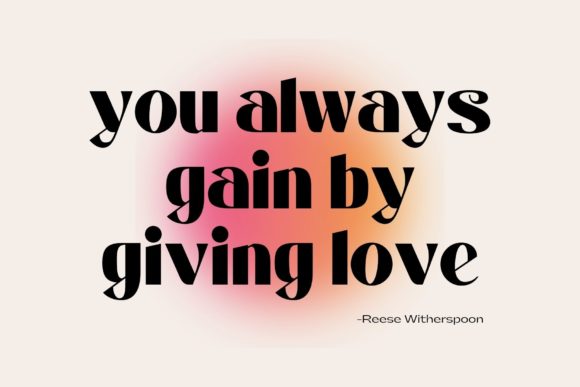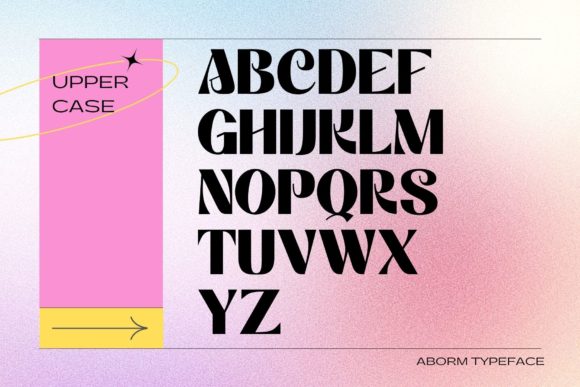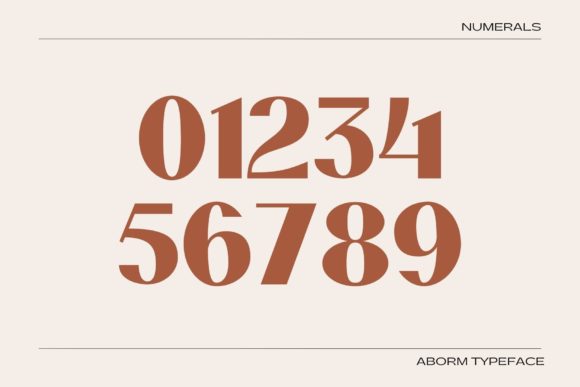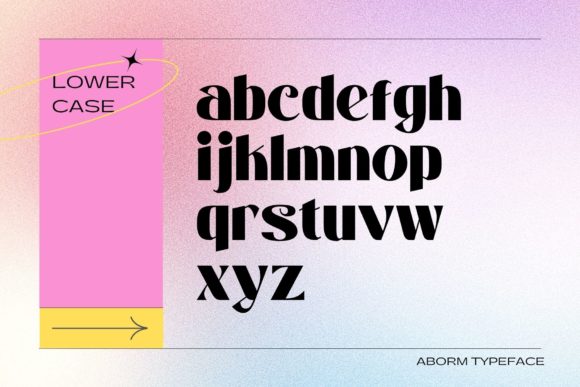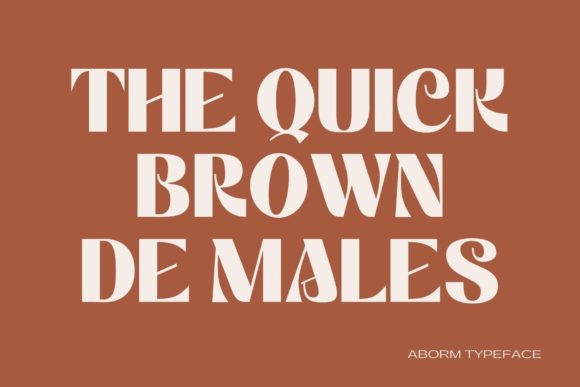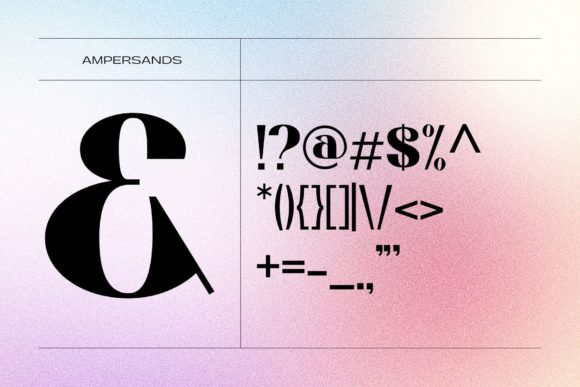
Aborm Font: Elevate Your Designs with a Cool and Modern Display Font
In the world of design, typography plays a crucial role in conveying messages, expressing creativity, and capturing the audience’s attention. A font can make or break a design project, which is why choosing the right one is essential. If you’re on the hunt for a cool and modern display font that can elevate your designs, look no further than Aborm Font. In this article, we’ll explore the features, benefits, and uses of Aborm Font, and why it’s a must-have for designers and crafters.
What is Aborm Font?
Aborm is a stylish and contemporary display font designed to provide beautiful typographic harmony for a wide range of design projects. Its sleek lines, elegant curves, and modern aesthetic make it perfect for designers who want to add a touch of sophistication to their work. Whether you’re creating logos, branding materials, social media posts, advertisements, or product designs, Aborm Font is an excellent choice.
Key Features of Aborm Font
So, what makes Aborm Font stand out from the rest? Here are some of its key features:
- Cool and Modern Design: Aborm Font boasts a fresh and modern design that’s sure to grab attention. Its unique style is perfect for designers who want to create something new and exciting.
- Beautiful Typographic Harmony: Aborm Font is designed to provide beautiful typographic harmony, making it easy to pair with other fonts and create stunning text combinations.
- Versatile: Aborm Font is suitable for a wide range of design projects, from logos and branding to social media posts and product designs.
- Elegant and Sophisticated: Aborm Font’s sleek lines and elegant curves give it a sophisticated look that’s perfect for high-end designs.
Uses of Aborm Font
Aborm Font is an incredibly versatile font that can be used in various design projects, including:
- Social Media Posts: Elevate your social media game with eye-catching posts that feature Aborm Font’s modern and sleek design.
- Advertisements: Grab attention and drive results with ads that feature Aborm Font’s beautiful typography.
- Product Designs: Add a touch of elegance to your product designs with Aborm Font’s sophisticated look.
Benefits of Using Aborm Font
So, why should you choose Aborm Font for your design projects? Here are some benefits:
- Save Time: With Aborm Font, you can create stunning designs in no time. Its modern design and beautiful typography make it easy to create professional-looking designs.
- Stand Out: Aborm Font’s unique style ensures that your designs stand out from the crowd and grab attention.
- Flexibility: Aborm Font is highly versatile, making it suitable for a wide range of design projects.
- Elegance: Add a touch of elegance and sophistication to your designs with Aborm Font’s sleek lines and elegant curves.
In conclusion, Aborm Font is an excellent choice for designers and crafters who want to elevate their designs with a cool and modern display font. Its beautiful typographic harmony, elegant design, and versatility make it perfect for a wide range of design projects. Whether you’re creating logos, branding materials, social media posts, advertisements, or product designs, Aborm Font is sure to impress. So, why wait? Get Aborm Font today and take your designs to the next level!